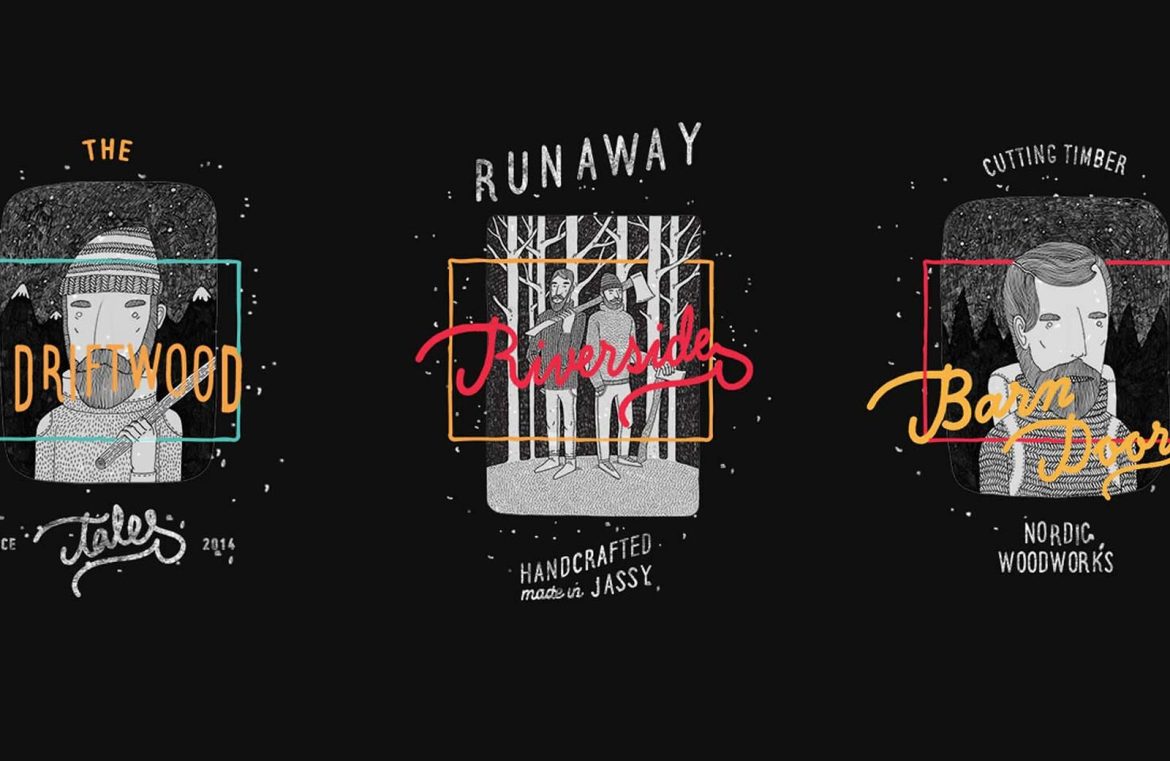
The first quarter of 2015 has been rich with new typography offerings, as we’ve seen a plethora of fresh fonts make their debut. There are clear patterns evident, which are continuations from last year; among these are the ongoing popularity of custom lettering, giving rise to stunning fonts like Gallow Tree, and an affection for bold geometric sans fonts, including the likes of Ohmega Sans. We’ve carefully curated a list featuring the creme de la creme of free fonts that were either introduced or updated in the early months of 2015. This selection encompasses complete font families, unique character treatments, captivating display fonts, workhorse body fonts, and a smattering of delightful outliers. Scroll through this treasure trove, test them, and if they feature in one of your projects, we’d be thrilled to hear about it!
Slot
Laura
Perfograma
Tritio
Refuge